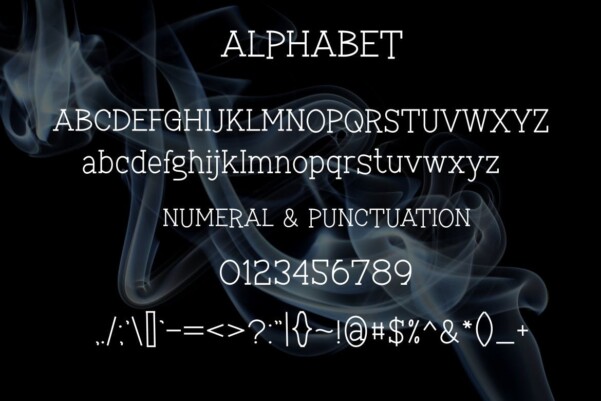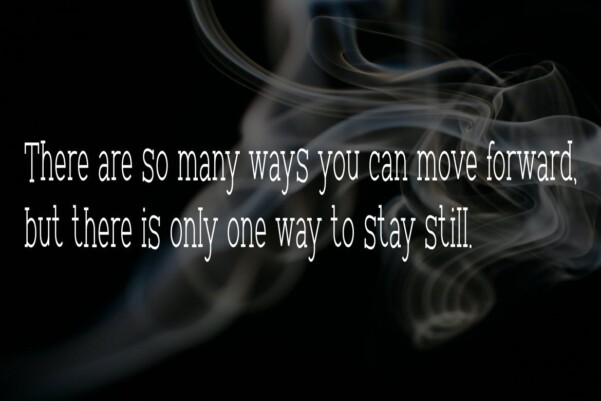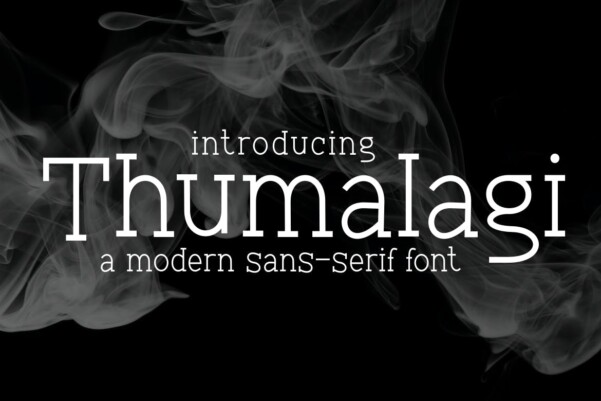
Thumalagi Font
Thumalagi Font is a modern and authentic font. Perfect for professional and branding needs of a product. This font is suitable for any branding project such as quotes, logo, blog header, poster, banner, letter, invitation, stationery, etc. Designed as a versatile, flexible tool that can be used on a range of projects and media. Exceptional in a wide range of contexts